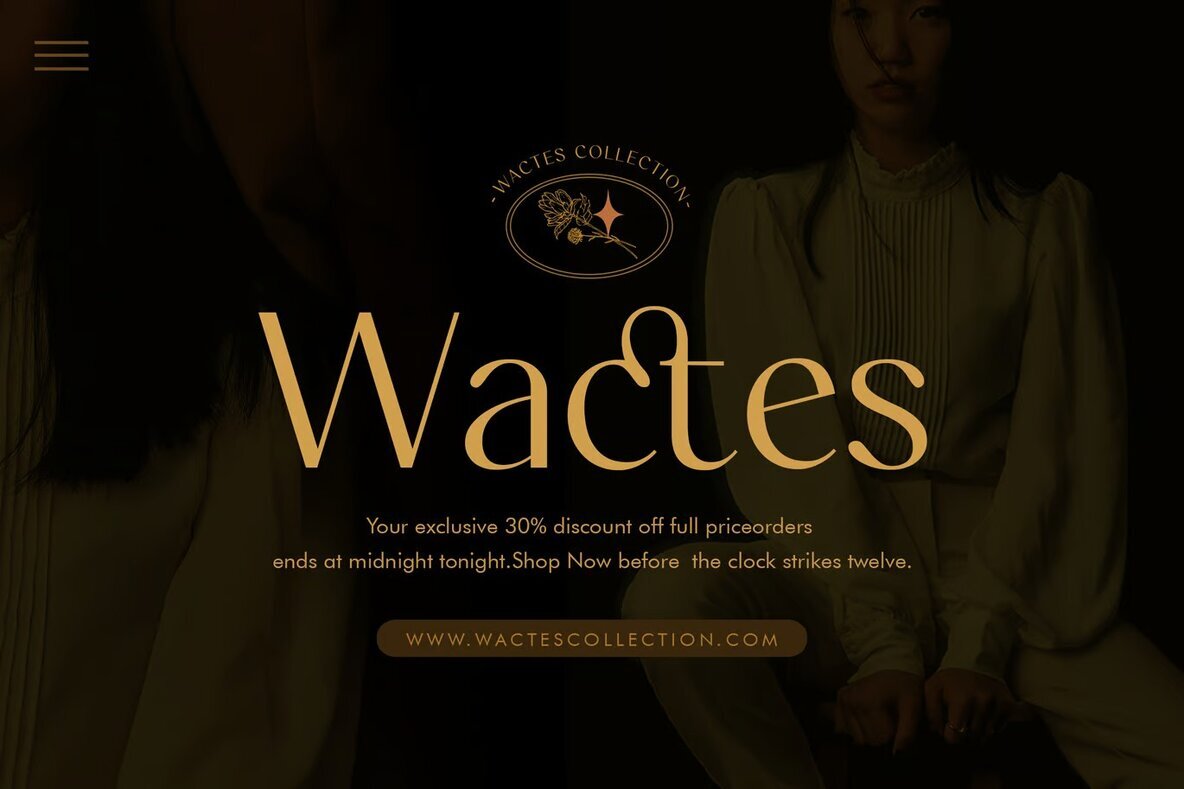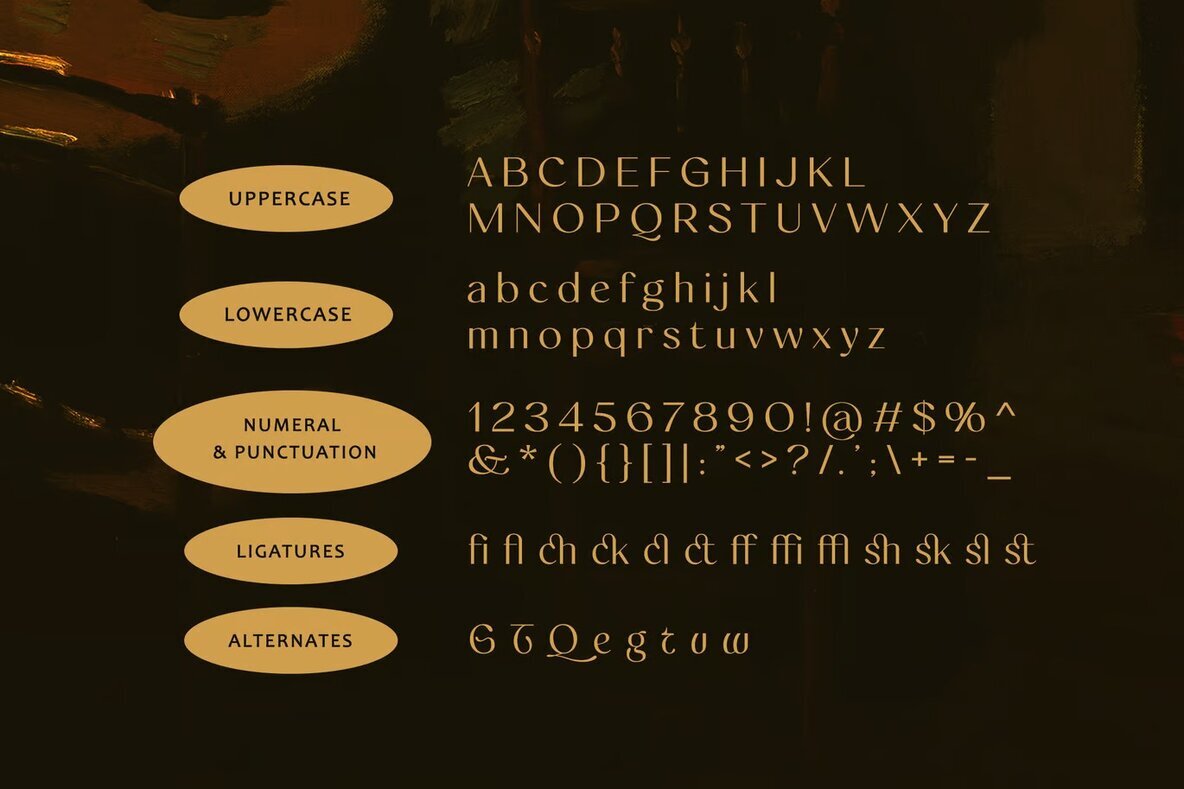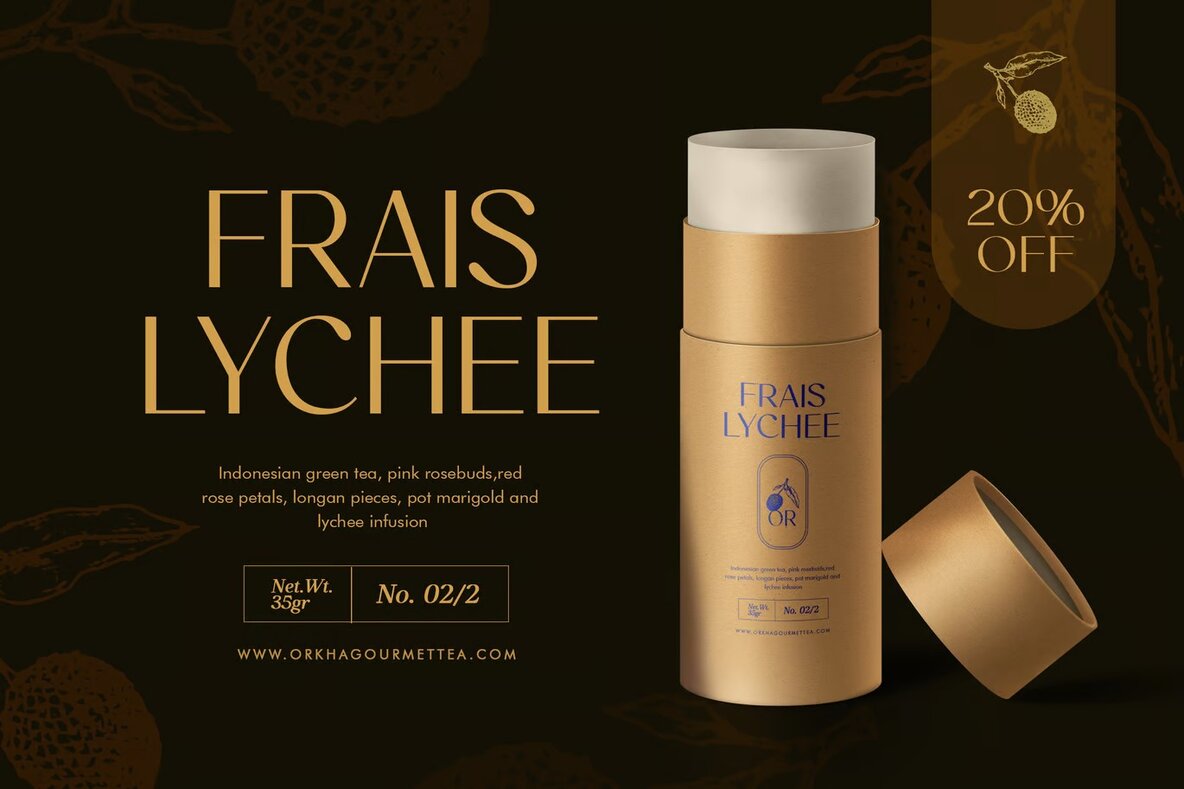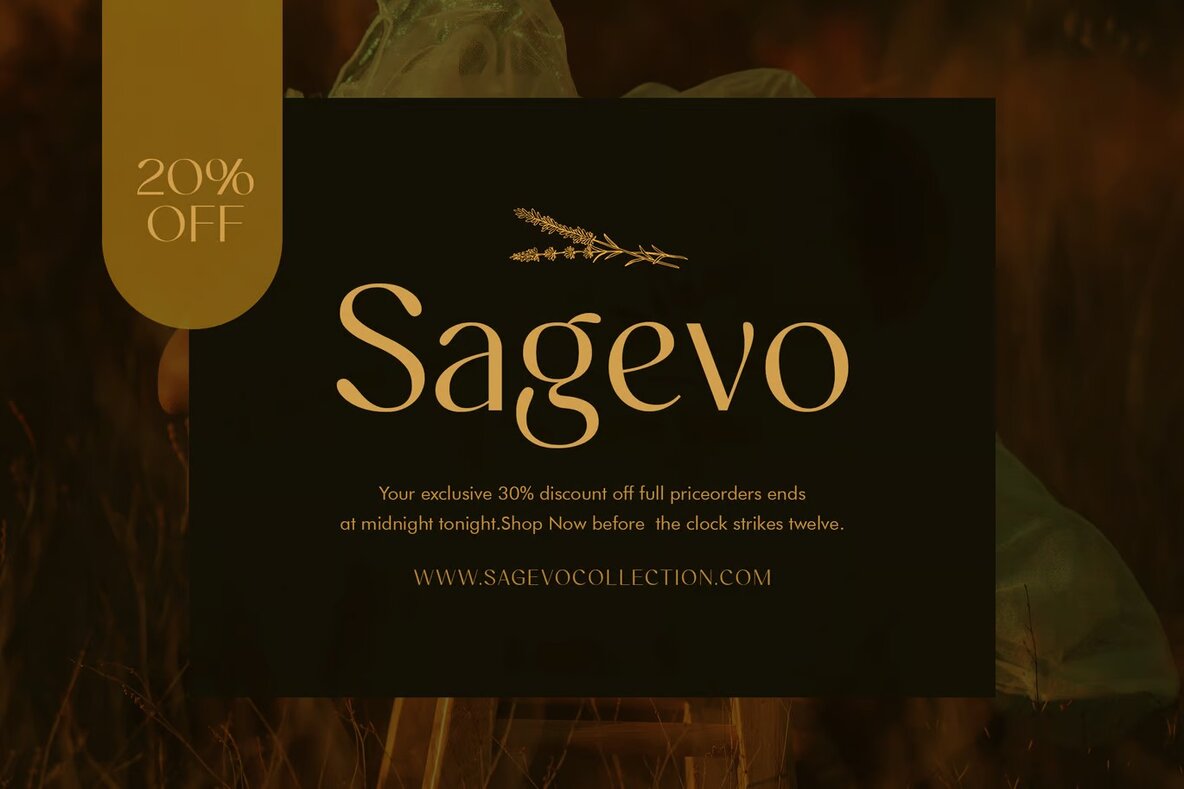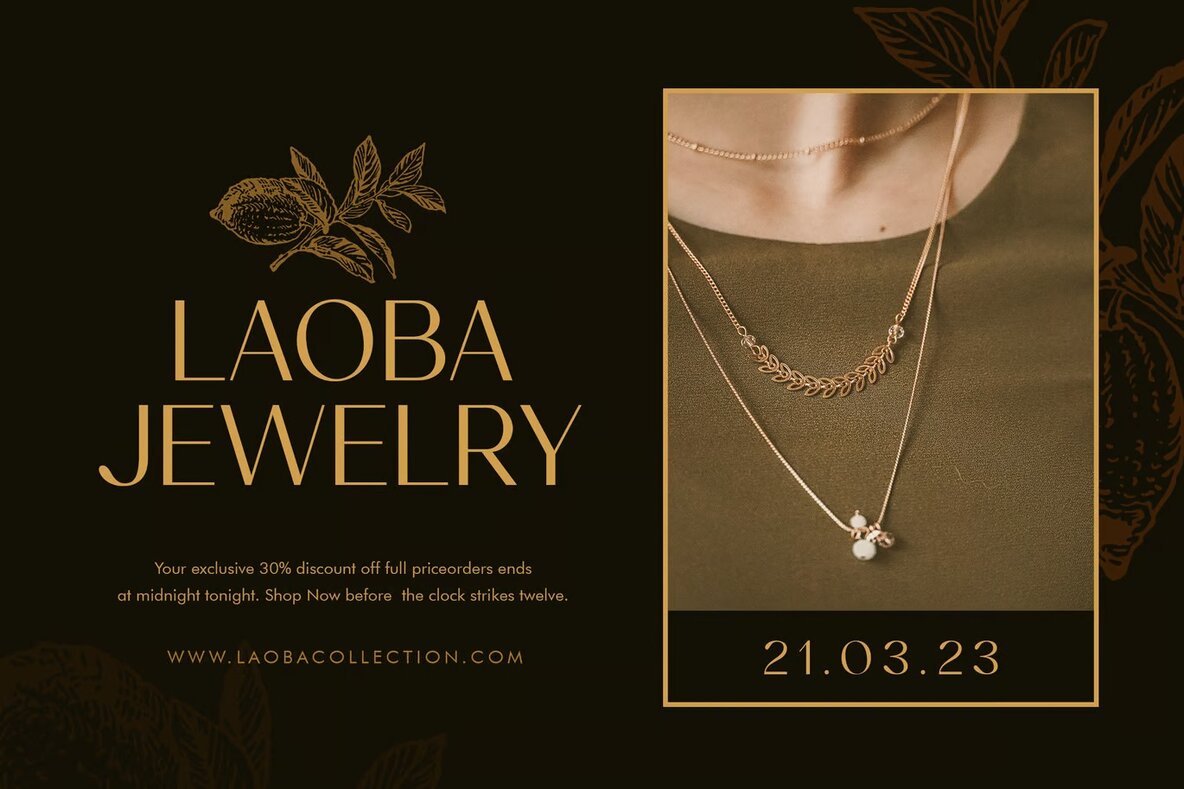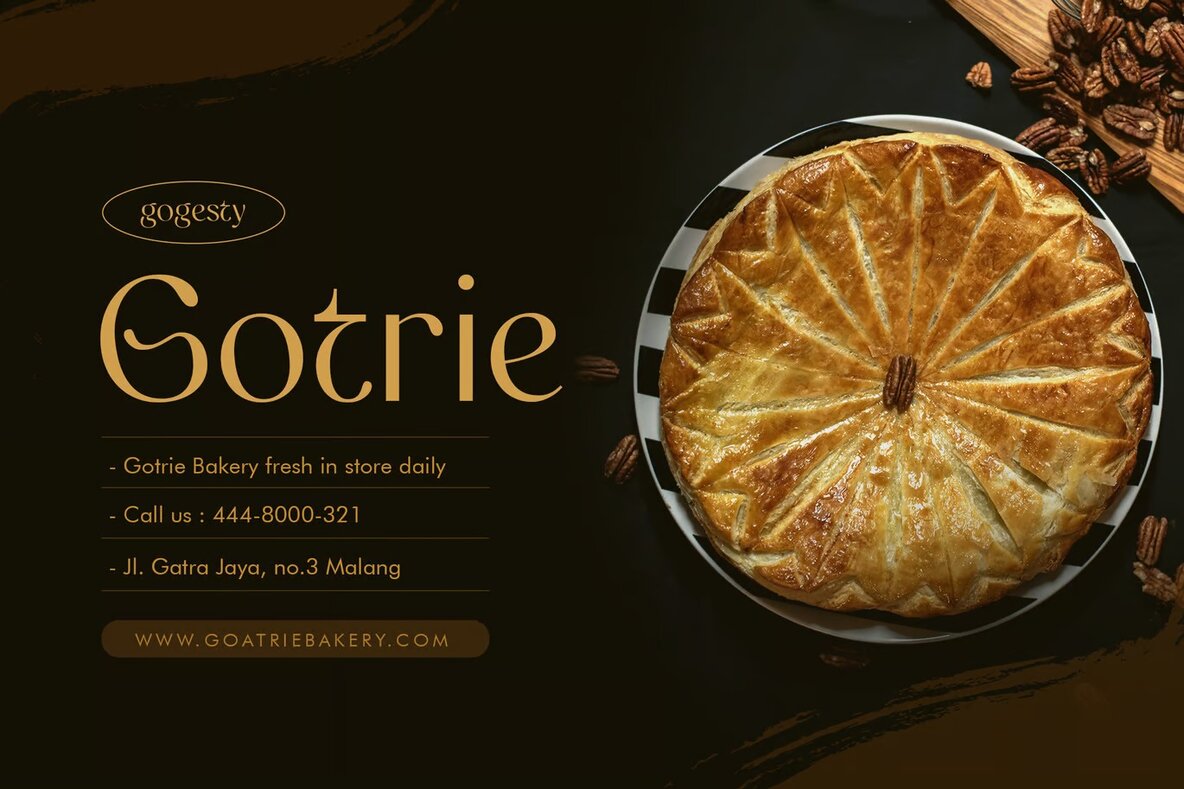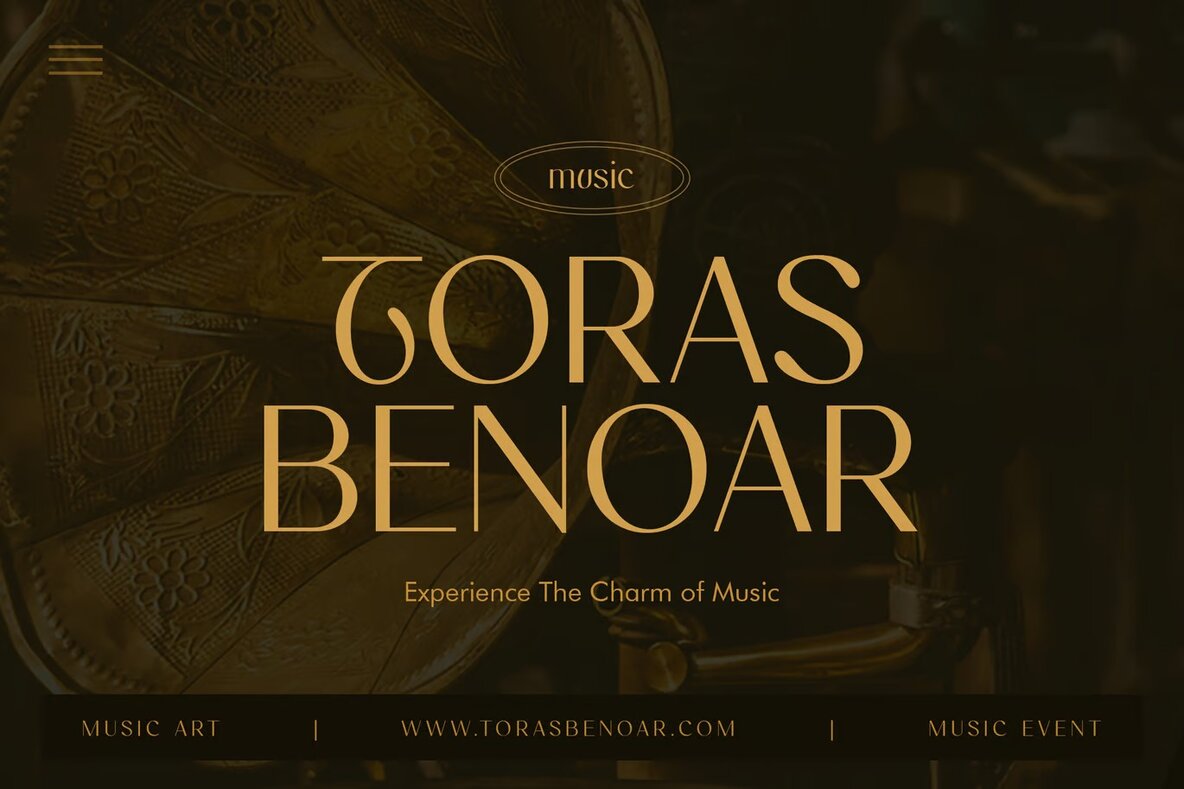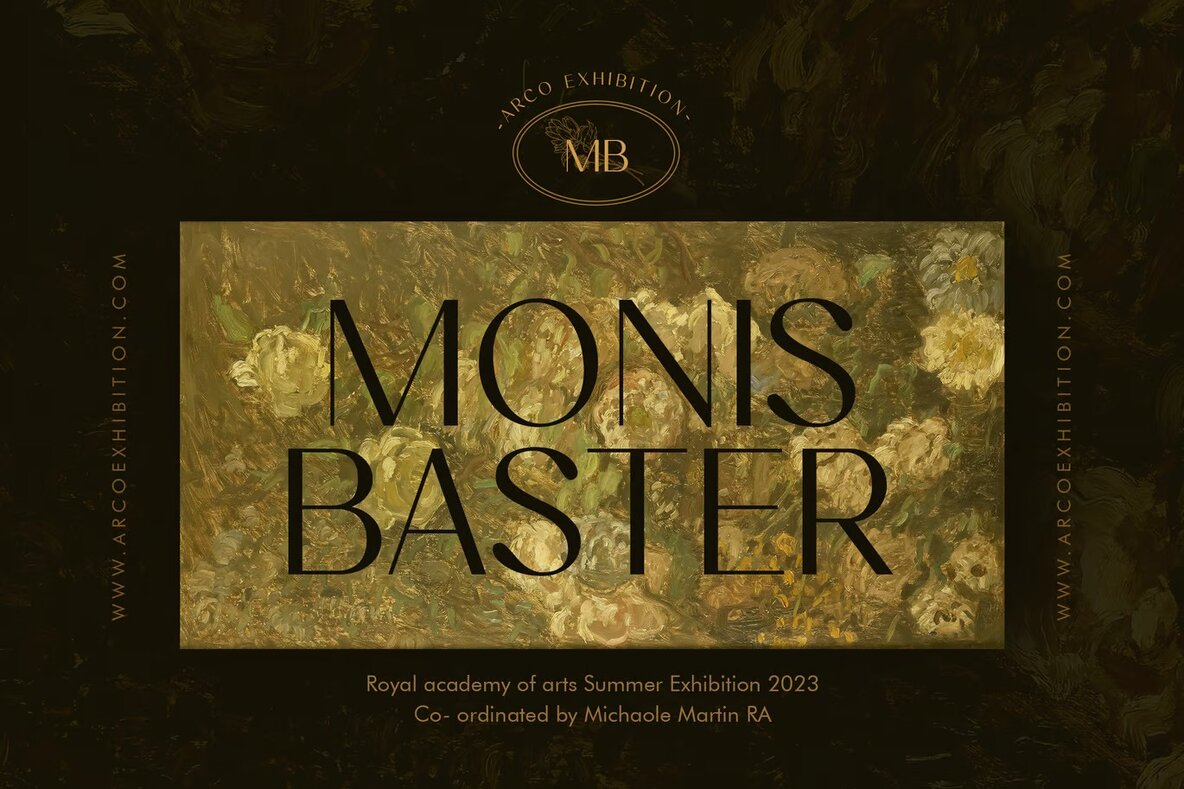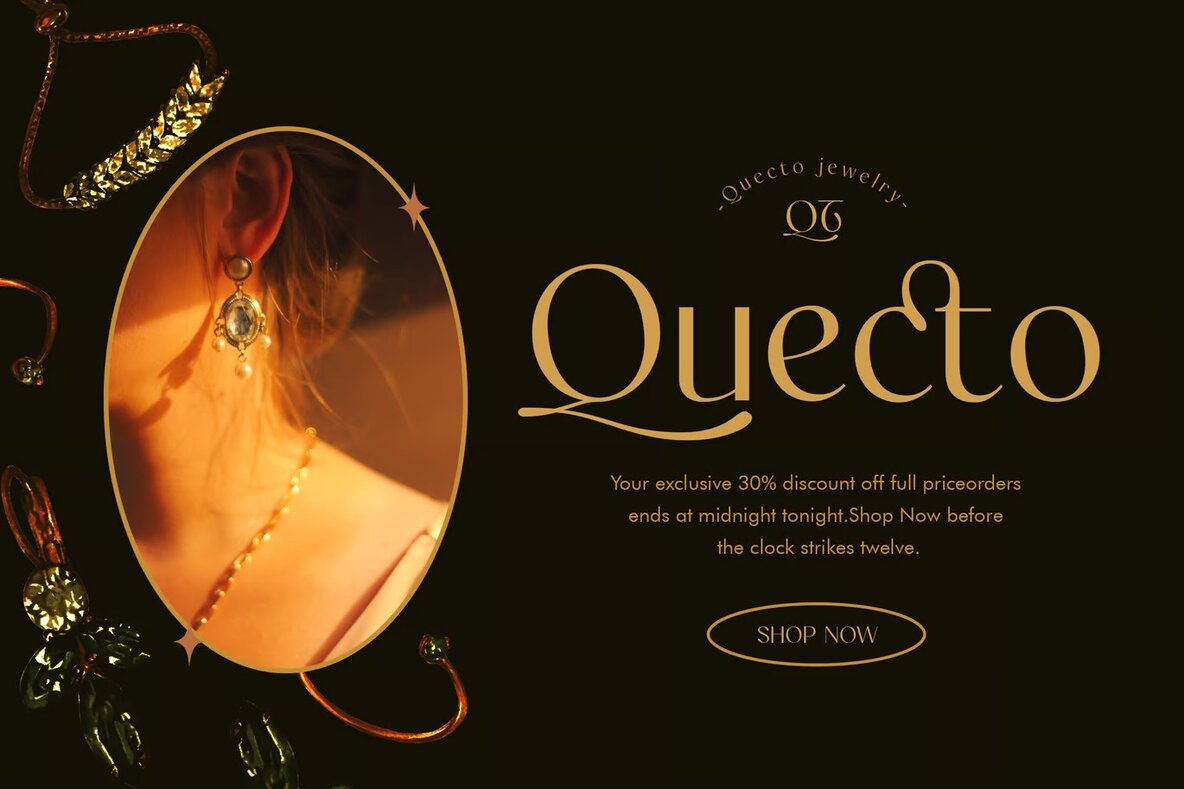
Gogesty Font
Gogesty Regular
Gogesty by Typia Nesia Studio delivers a classy, elegant aesthetic with its Sans Serif design. Perfect for expressive and romantic projects, this font captures a feminine and lovely style, ideal for enhancing your upcoming typography designs.Gogesty Sans Serif: Classy and Elegant Aesthetic